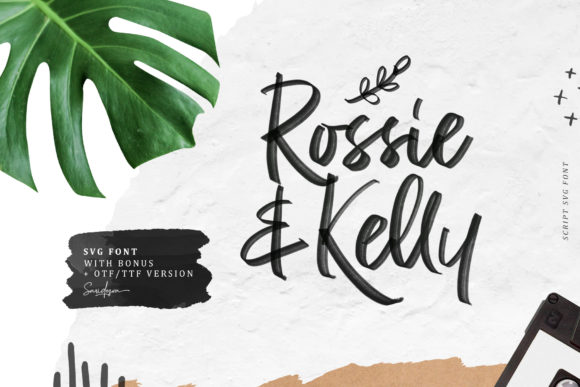
Embrace the Beauty of Rossie Kelly Font: A Symphony of Elegance and Charm
Immerse yourself in the world of Rossie Kelly, an extraordinary script font that exudes elegance and charm like no other. Crafted with meticulous attention to detail, this font family showcases a fluid, graceful design that mimics the beauty of natural handwriting. Its smooth curves and delicate flourishes will add a touch of sophistication and personalization to your creative projects.
Discover the Allure of Rossie Kelly: A Font Family That Captivates and Inspires
Rossie Kelly is more than just a font; it's a versatile masterpiece that seamlessly adapts to a wide array of design concepts. Whether you're crafting stunning logos, captivating social media graphics, or creating unique invitations, Rossie Kelly seamlessly blends with your vision, adding an undeniable charm to every project.
Unleash Your Creative Potential: Explore the Endless Possibilities of Rossie Kelly
With Rossie Kelly, the possibilities are limitless. Its versatile nature allows you to experiment and create designs that resonate with your audience. Indulge in the art of calligraphy, create heartfelt greeting cards, design eye-catching posters, or add a touch of elegance to your branding materials. Let your creativity soar as you witness the transformative power of Rossie Kelly.
Experience the Versatility of Rossie Kelly: A Font That Adapts to Your Design Needs
From the delicate strokes of a love letter to the bold statements of a marketing campaign, Rossie Kelly adapts effortlessly to your design needs. It effortlessly complements both traditional and contemporary styles, making it the perfect choice for designers seeking a timeless and versatile font. Rossie Kelly seamlessly integrates with various design software, ensuring a smooth and seamless workflow.
Enhance Your Designs with Rossie Kelly: Elevate Your Creativity to New Heights
Rossie Kelly is a font that truly elevates your designs, transforming them into captivating works of art. Its ability to mimic realistic handwriting adds a personal touch, creating designs that resonate with your audience on a deeper level. Unleash your creativity and witness the remarkable difference that Rossie Kelly brings to your design projects.